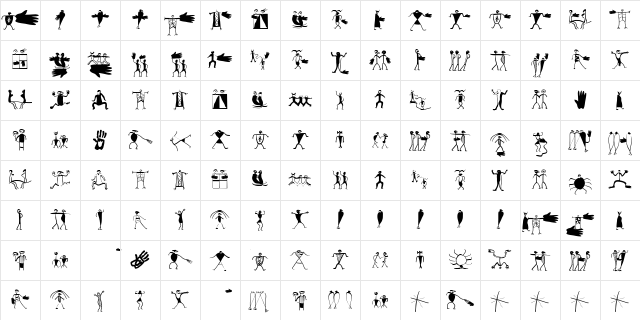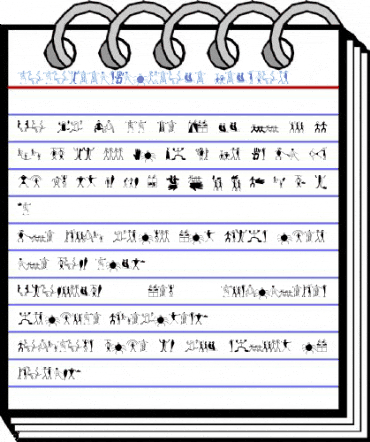
DadaMeetsStoneage Regular
Design Context for DadaMeetsStoneage
DadaMeetsStoneage is a composed and adaptable typeface that performs quietly and consistently across a wide range of design contexts.